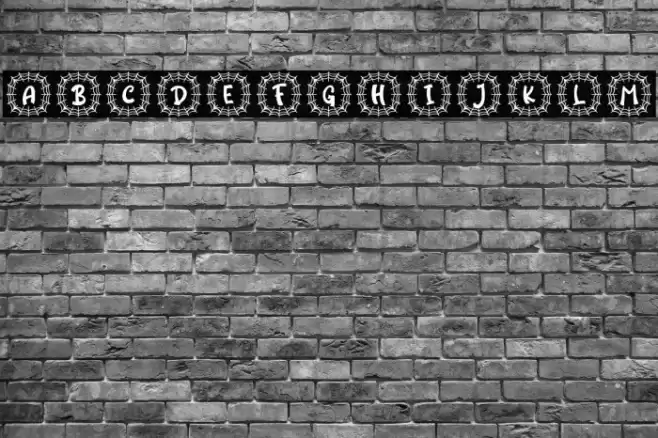
Laba Monogram Regular Font
Laba Monogram Regular Description
This font features a unique and decorative style, with each letter encased in a thorny, circular border that adds a distinctive flair. The uppercase letters are bold and prominent, making them ideal for monogram designs or decorative initials. The intricate border design gives it a vintage and ornamental feel, perfect for projects that require a touch of elegance and sophistication. The font's artistic nature makes it stand out, and it is well-suited for creative and artistic applications.
A decorative font with bold letters encased in thorny, circular borders from Uncategorized fonts.
- Font: Laba Monogram Regular
- Proposed Projects: Ideal for monograms, invitations, logos, and decorative projects requiring a vintage touch.
- Overall Style: Vintage, Decorative
- Use Case: Logos, Headlines, Decorative text